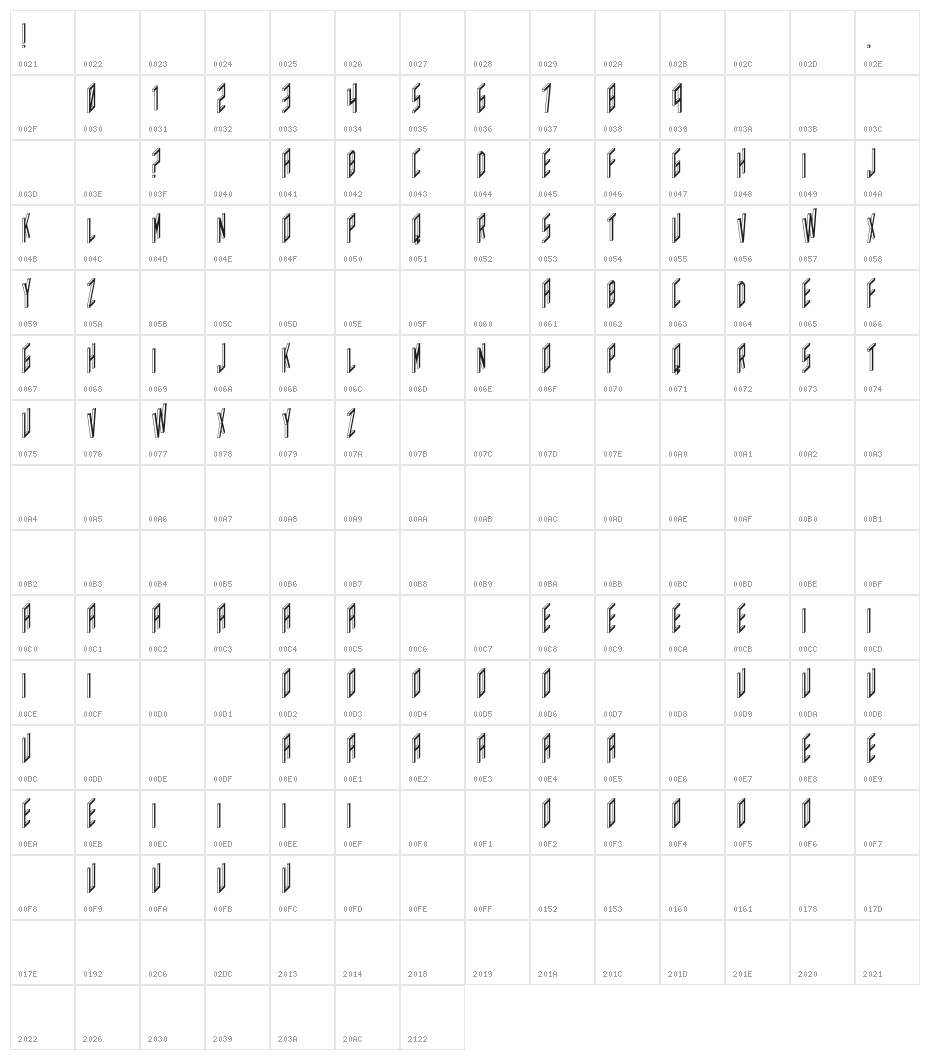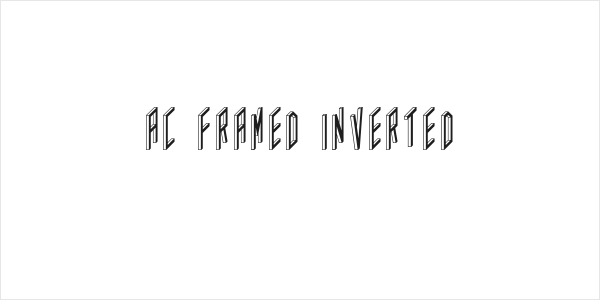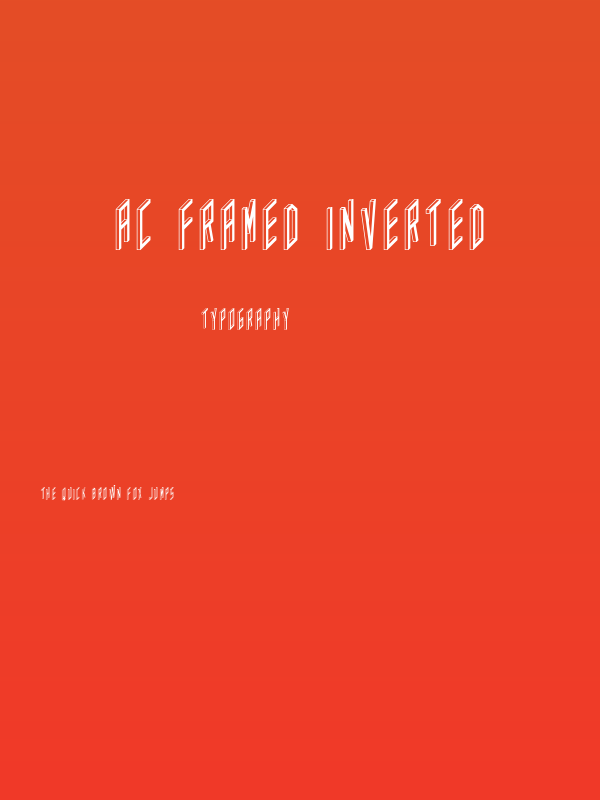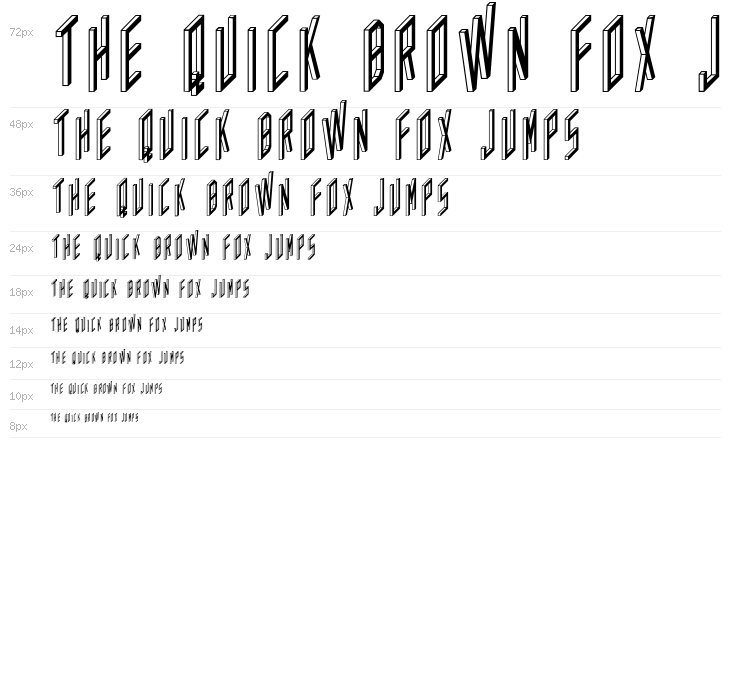
AC Framed Inverted Font
AC Framed Inverted Description
This font features a bold, three-dimensional design with a distinct shadow effect that gives each character a framed appearance. The letters are uppercase and lowercase, with numerals and a selection of special characters. The style is geometric and structured, with sharp angles and clean lines that create a sense of depth and dimension. The font's unique design makes it stand out, offering a modern and edgy look that is both eye-catching and versatile. The spacing between characters is consistent, allowing for clear readability despite the intricate design. This font is ideal for projects that require a strong visual impact.
| Proposed Projects | Ideal for posters, logos, branding, and any design requiring a striking visual impact. |